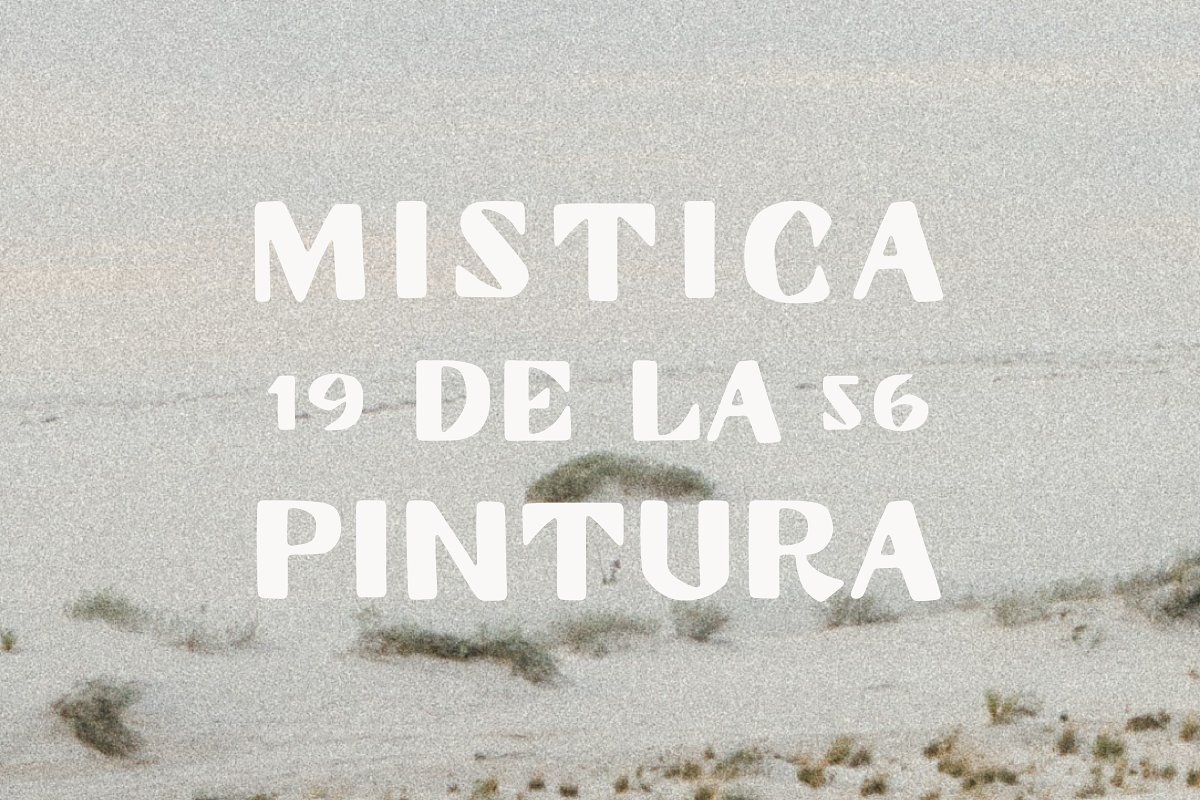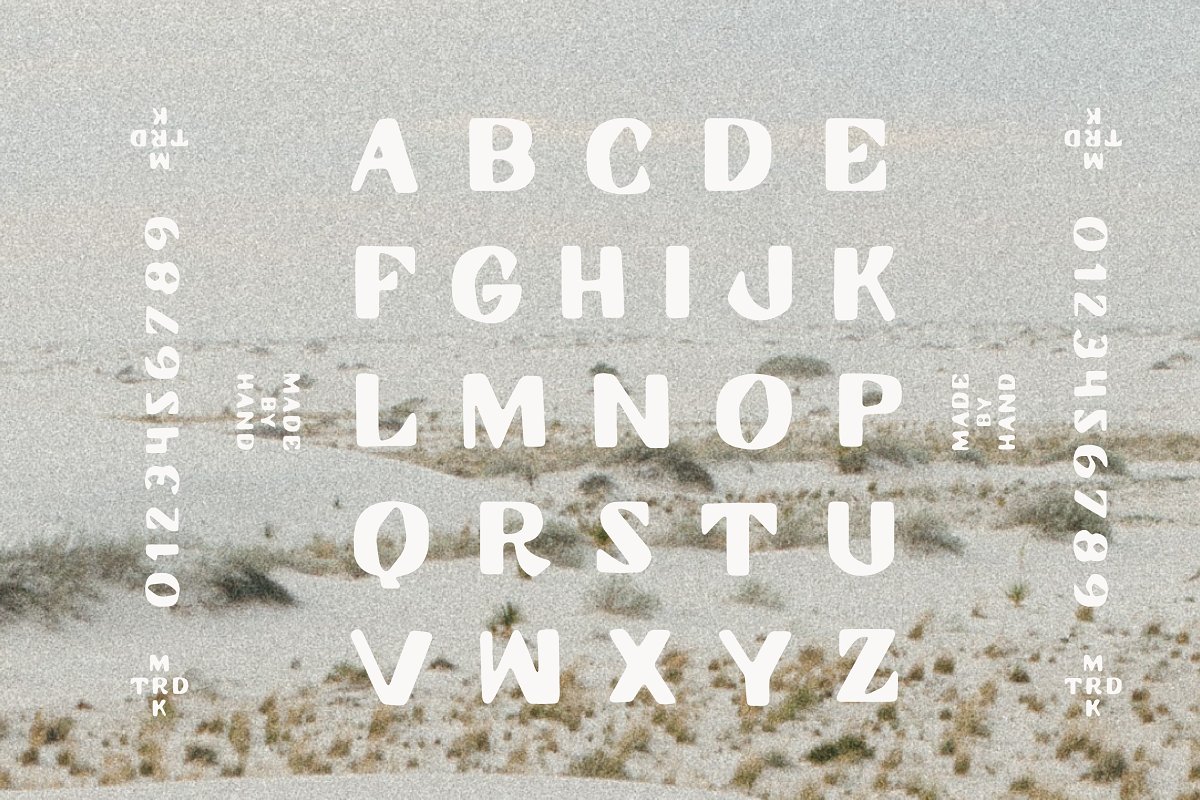
About the Mistica Typeface Font
Mistica was inspired by the rugged deserts of the American Southwest and the hand lettering that inhabited forgotten towns throughout its vastness, A fully functional typeface with additional characters and glyphs from a variety of languages,